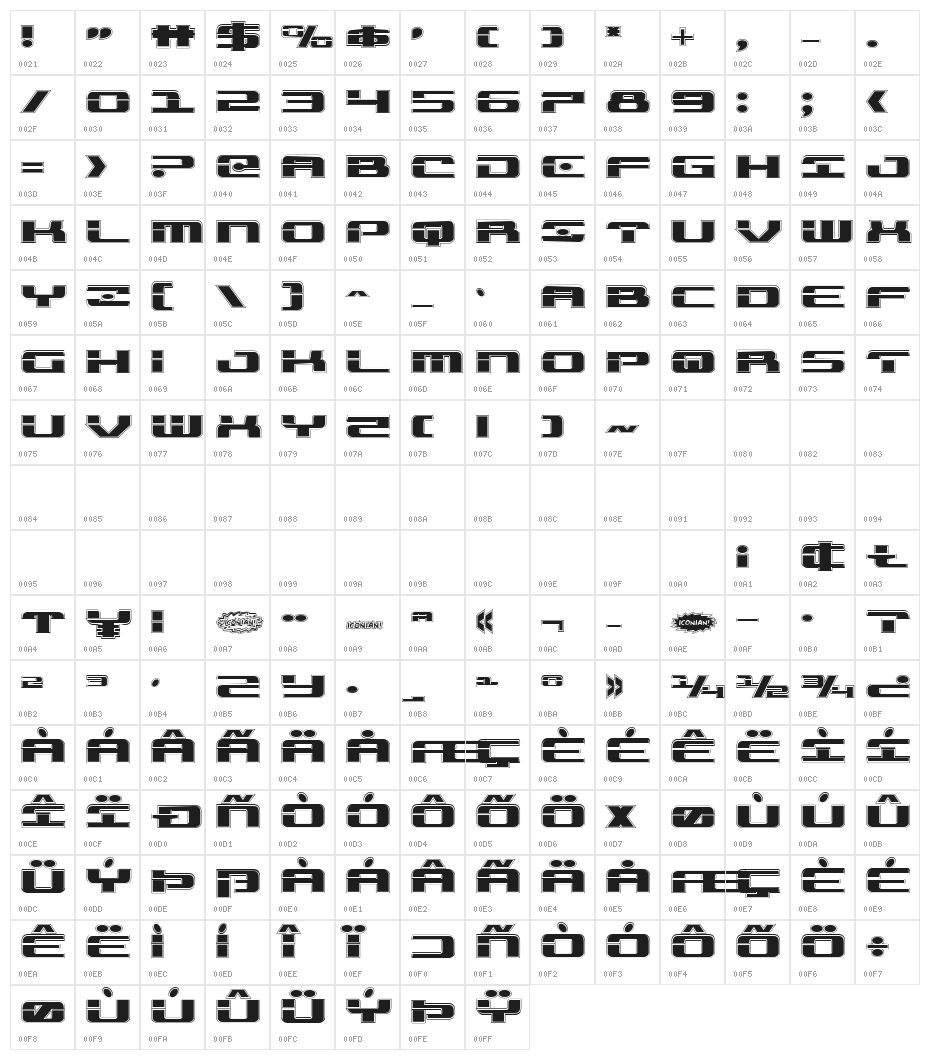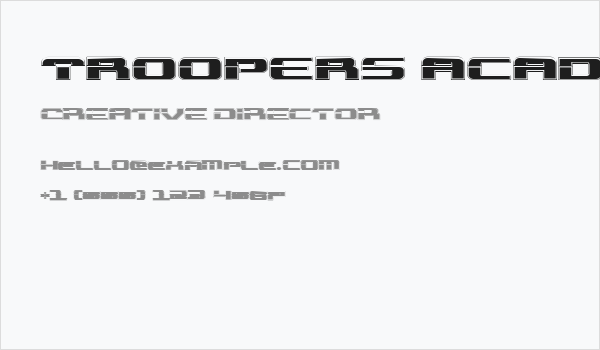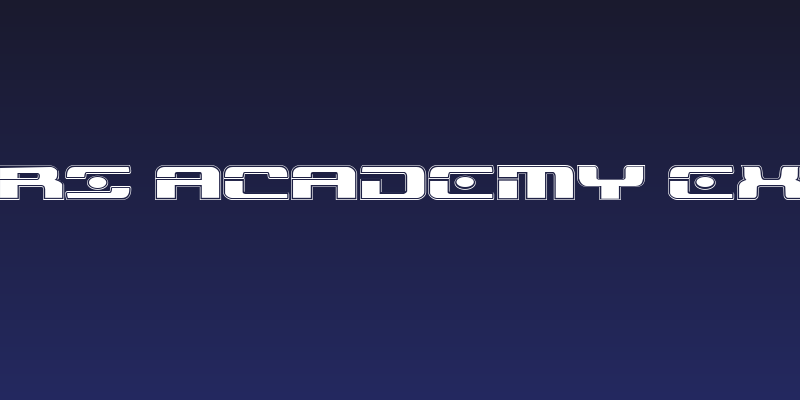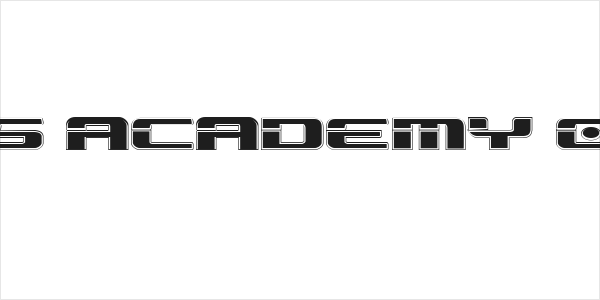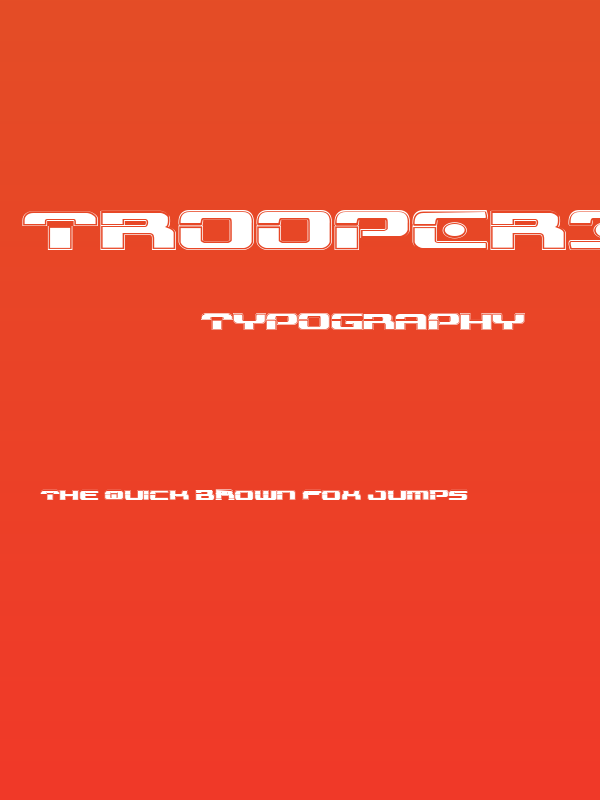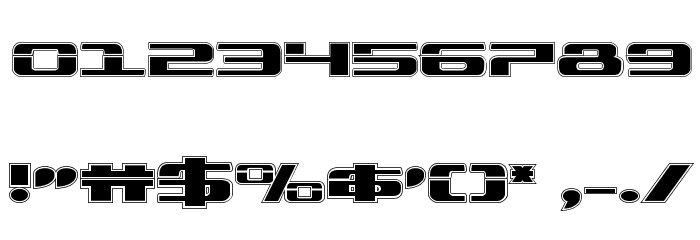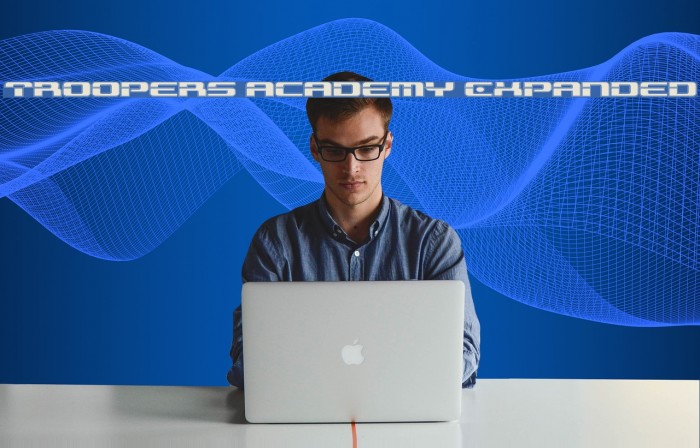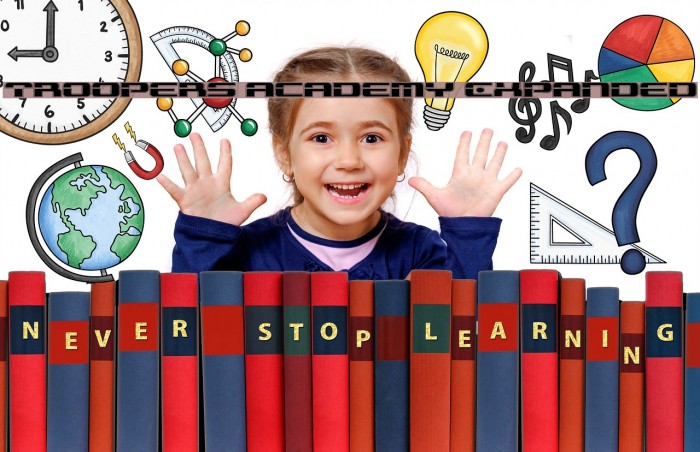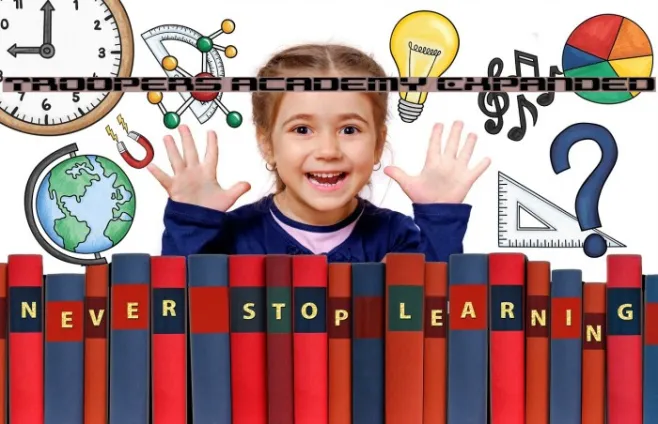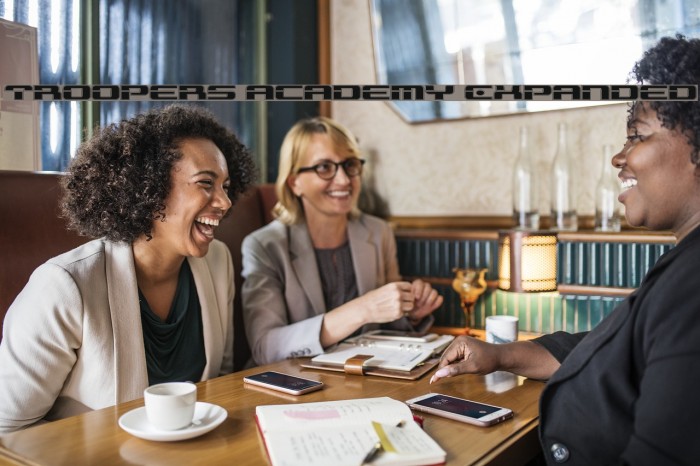
Troopers Academy Expanded Font
Troopers Academy Expanded Description
This font features a bold, futuristic design with a distinctly geometric structure. Each character is crafted with a combination of straight lines and sharp angles, giving it a mechanical and industrial feel. The letters are uniformly wide, creating a sense of stability and strength. The font includes both uppercase and lowercase letters, numerals, and a variety of special characters, all maintaining the same stylistic approach. The characters are outlined, adding depth and a three-dimensional effect, which enhances its visual impact. This font is ideal for projects that require a modern, tech-inspired aesthetic.